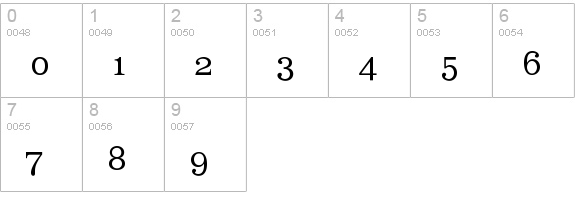
ImpressumSCEF-Light Font Details
ImpressumSCEF-Light is a refined, elegant variant in the ImpressumSCEF typeface family \xE2\x80\x94 well suited to elegant body text, refined sub-headings, and luxury branding.
ImpressumSCEF-Light is a stunningly elegant font that exudes sophistication and professionalism. Its delicate and graceful letterforms make it perfect for a wide range of design projects, from elegant invitations to luxurious branding materials. This font embodies a sense of refinement with its clean lines and subtle curves. The slim and light weight of ImpressumSCEF-Light adds a touch of delicacy, making it ideal for creating an air of elegance and sophistication in any design. One of the most enticing aspects of ImpressumSCEF-Light is that it is free to download. Yes, you read that right - this incredible font is freely available to download at FontsMarket.com. This means that you can easily access and incorporate this stunning font into your projects without any cost. Whether you are a professional designer looking for a versatile font to add to your collection or a beginner designer searching for a high-quality font that won't break the bank, ImpressumSCEF-Light is the perfect choice. It offers a harmonious balance between elegance and simplicity, making it suitable for a wide range of design needs. With its captivating charm and effortless beauty, ImpressumSCEF-Light will undoubtedly elevate your designs to new levels of sophistication. Download it for free from FontsMarket.com today and let your creativity flourish with this exceptional font.